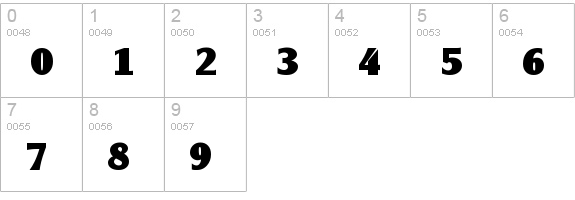
Clearly Gothic Heavy is a heavy, high-impact variant in the Clearly typeface family \xE2\x80\x94 well suited to high-impact headlines, posters, and display advertising.
Clearly Gothic Heavy is a striking and bold font that exudes a sense of strong elegance and modern sophistication. Its clean lines and sharp edges make it perfect for creating impactful designs that command attention. The thick strokes and defined letterforms give this font a distinctive presence that is both stylish and versatile. What makes Clearly Gothic Heavy even more appealing is that it is available for free download at FontsMarket.com. This means that you can easily access this high-quality font to enhance your projects without any cost. Whether you are working on branding, advertising, posters, or any other design project, Clearly Gothic Heavy will bring a touch of sophistication and flair to your work. Download this font today and elevate your designs with its powerful presence.